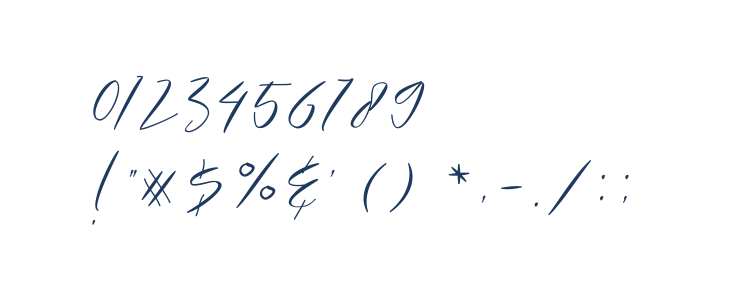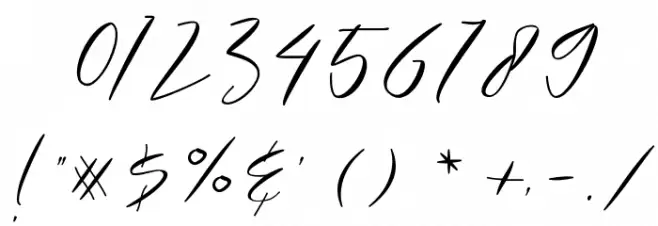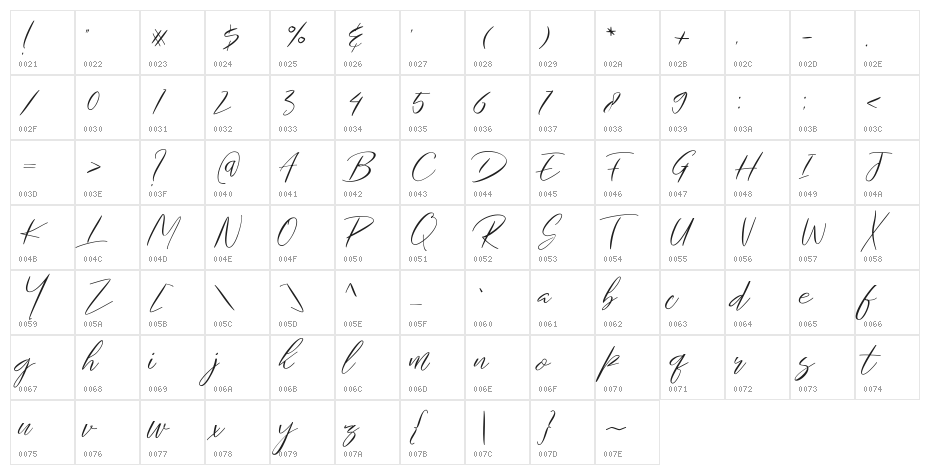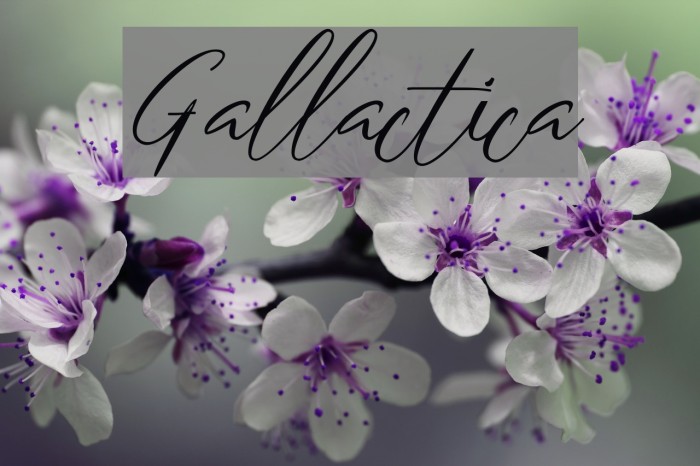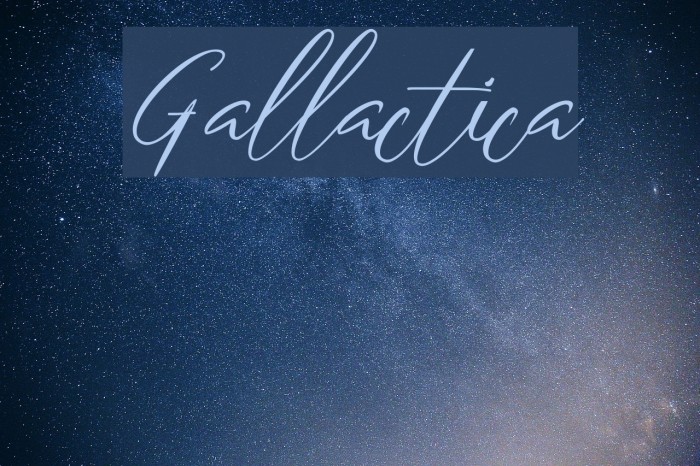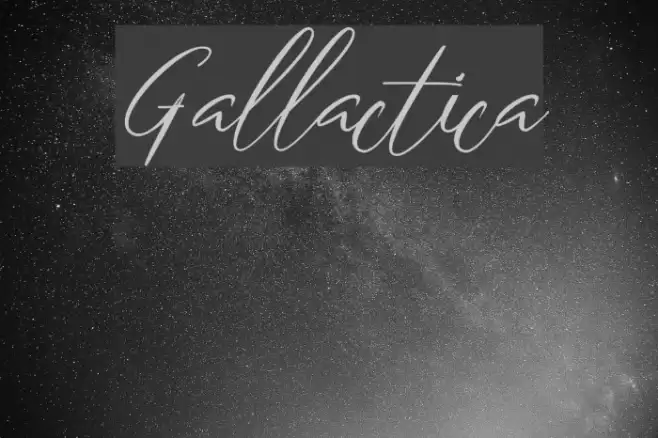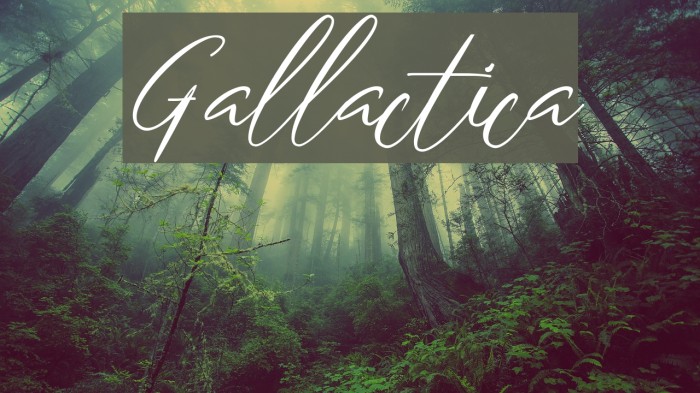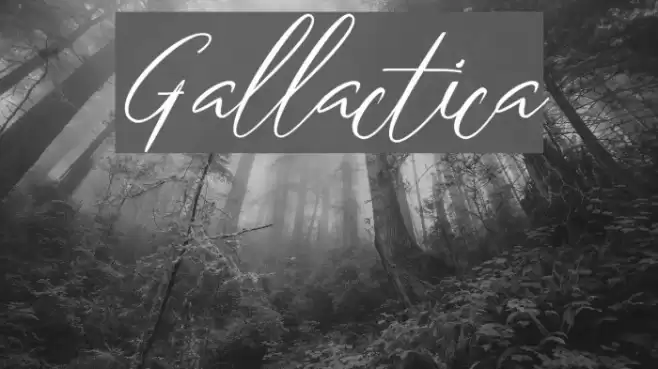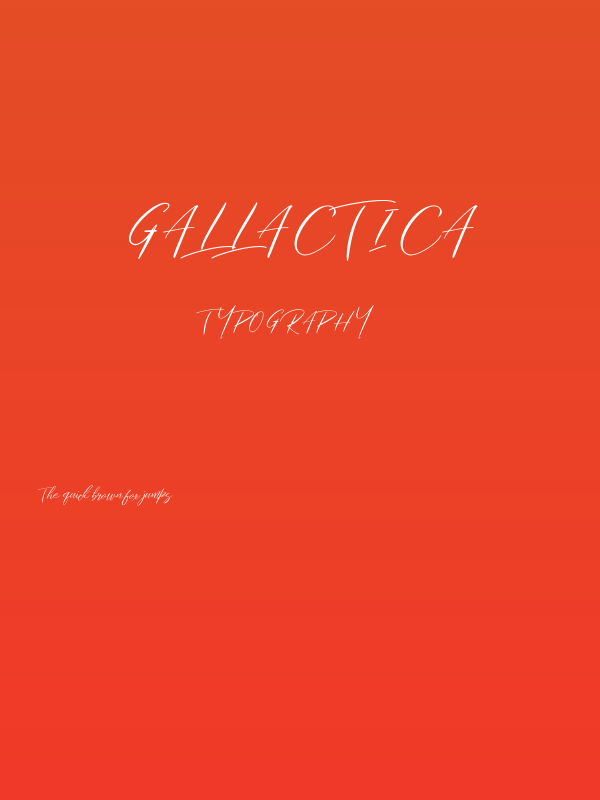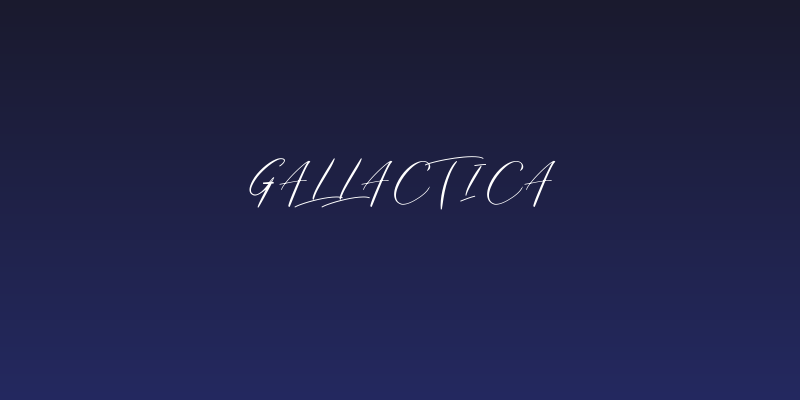
Gallactica Font
Gallactica Description
This font exudes a dynamic and elegant script style, characterized by its fluid and cursive letterforms. The uppercase letters are tall and slightly slanted, giving a sense of movement and grace. The lowercase letters maintain a consistent flow, with some characters featuring loops and swashes that enhance its decorative appeal. The numerals are designed to match the script style, with a slight slant and smooth curves. Special characters are integrated seamlessly, maintaining the overall aesthetic. This font is ideal for projects that require a touch of sophistication and flair.